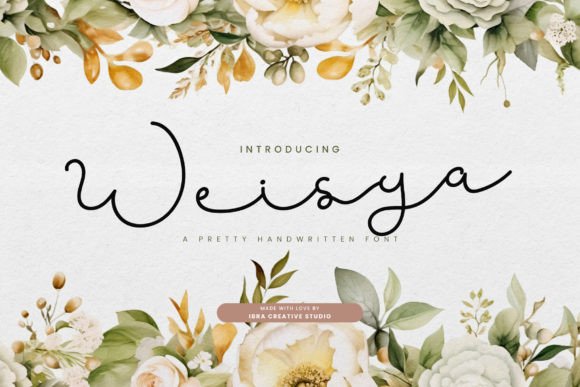
Unleash the Enchanting Beauty of Weisya: A Handcrafted Font for Timeless Charm
Immerse yourself in the world of Weisya, a captivating handwritten font brimming with delicate beauty and timeless charm. Each letterform in this graceful script dances across your screen, exuding an air of whimsical elegance that will leave you utterly mesmerized. The subtle variations in strokes, the gentle curves, and the natural, handcrafted feel of Weisya bring a touch of romance and sophistication to any project you undertake.
With Weisya, you have the power to transform ordinary words into breathtaking works of art. Picture the sheer delight of your wedding invitations adorned with Weisya's elegant strokes, inviting your guests to a day filled with love and enchantment. Envision the allure of your beauty products, their packaging enhanced by Weisya's feminine charm, captivating customers with its irresistible allure. Elevate your stationery to new heights of sophistication, as Weisya's graceful lines dance across notecards, letterheads, and envelopes, leaving a lasting impression on all who receive them.
The beauty of Weisya lies in its versatility, effortlessly bridging the gap between vintage charm and modern sensibilities. Whether you seek to create enchanting logos, captivating social media posts, or stunning marketing materials, Weisya's adaptability shines through. Its ability to seamlessly blend the classic with the contemporary makes it an enchanting choice for designers of all levels, empowering you to infuse your designs with a touch of timeless elegance.
Weisya is not just a font; it's an invitation to embark on a creative journey where imagination knows no bounds. Embrace the magic of handwritten appeal, and let Weisya guide you towards designs that captivate hearts and leave an everlasting impression.